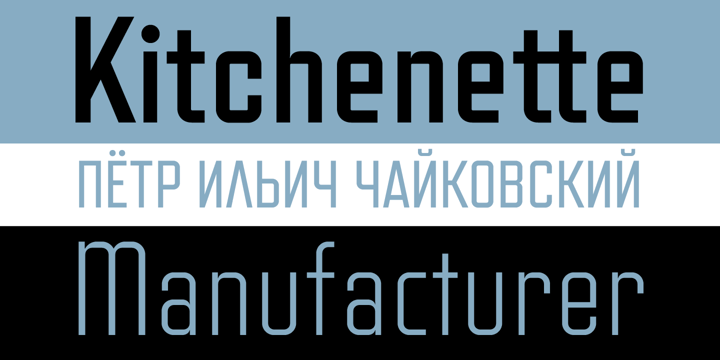
Refrigerator Deluxe
Refrigerator Deluxe by Mark Simonson
About Refrigerator Deluxe Font Family
Refrigerator Deluxe is an expanded and enhanced version of Refrigerator, a condensed, geometric sans serif inspired by mid-20th century vernacular styles from America and Europe. Refrigerator Deluxe features a great number of alternate characters that can be used to achieve endless variations from basic "block letter" to high style Art Deco through the magic of OpenType.